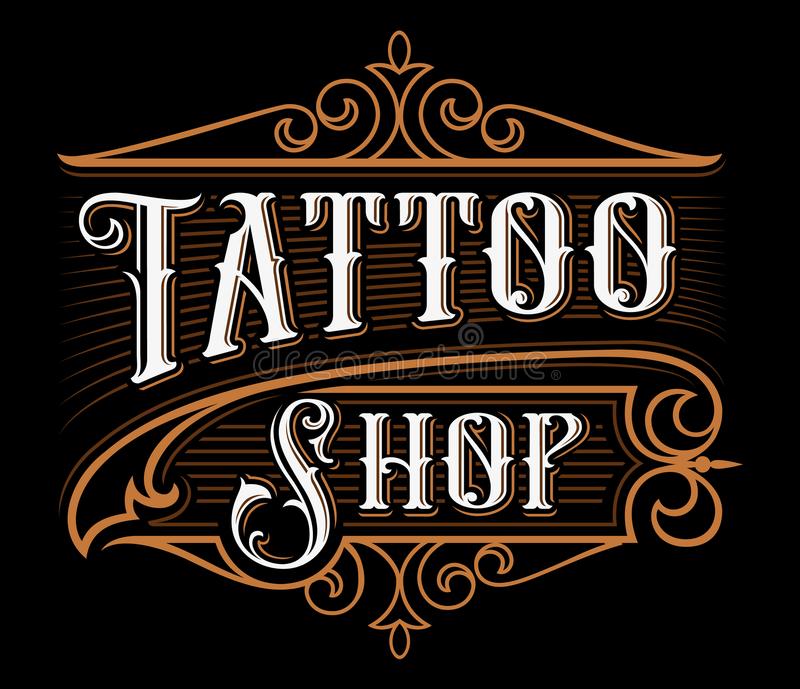
Tattoo Shop Font
Tattoo Shop Font was inspired by carnival, circus and tattoo signs shop from the late 1800’s, This free font works well with normal size text, but it works even better for large displays, short words, or even just to incorporate a few or single characters in a design.